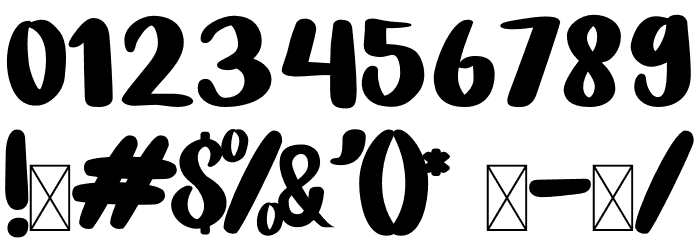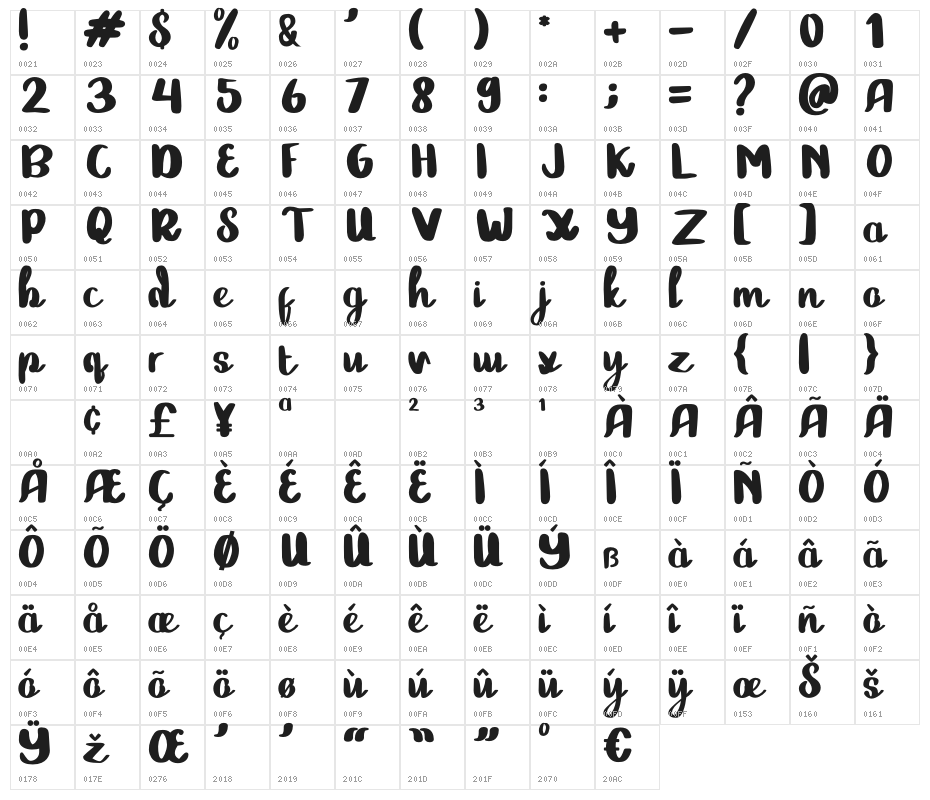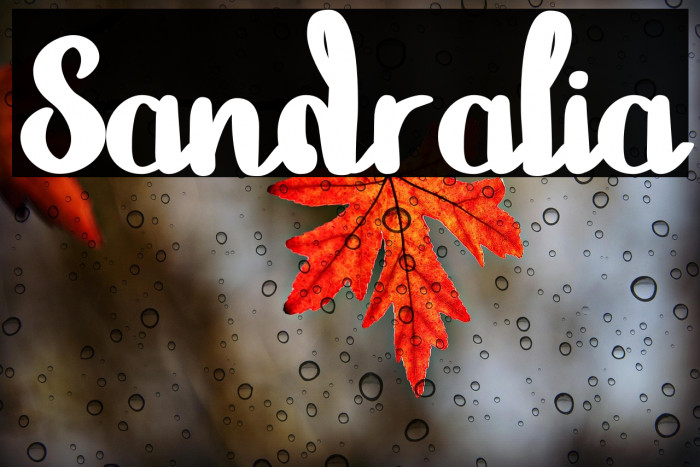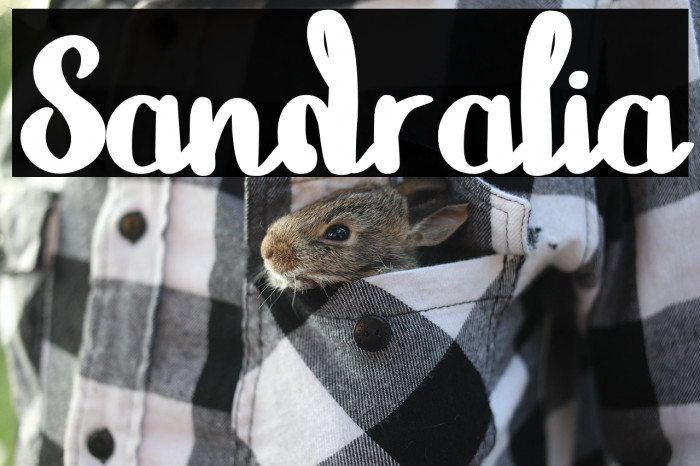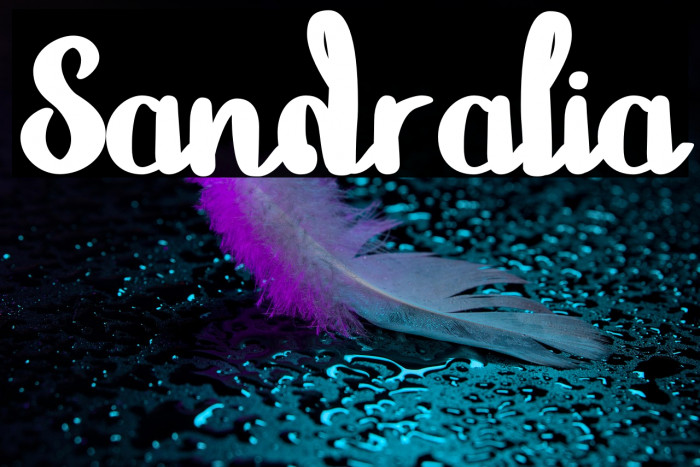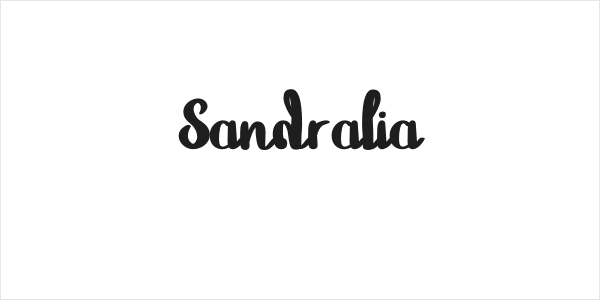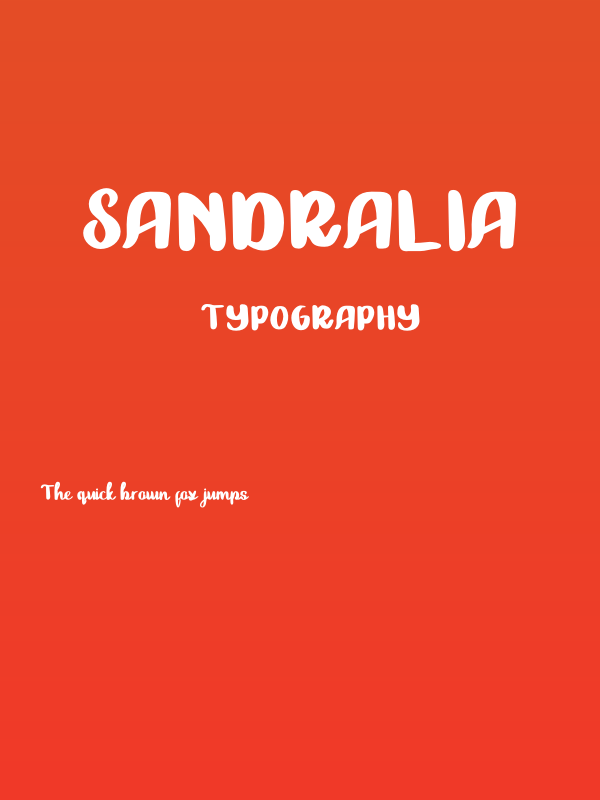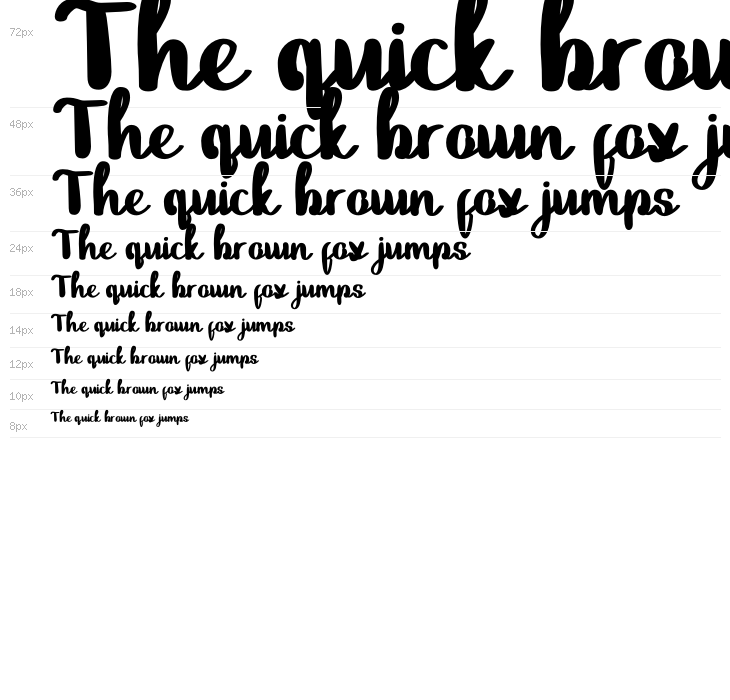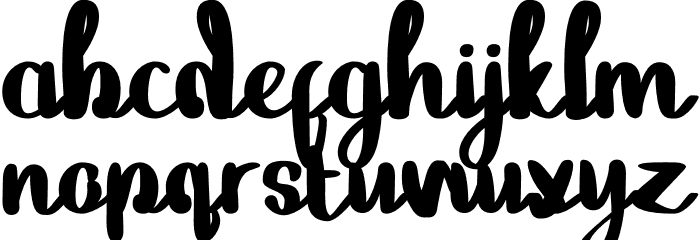
Sandralia Font
Sandralia Description
This font features a bold, playful script style with a handwritten feel. The characters are rounded and have a smooth flow, creating a sense of movement and energy. The uppercase letters are bold and slightly condensed, while the lowercase letters exhibit a more cursive, connected style. The numbers and special characters maintain the same boldness and playful aesthetic, making them stand out. The overall design is cohesive and visually appealing, suitable for projects that require a touch of creativity and informality.
| Overall Style | Playful, Creative |
| Proposed Projects | Ideal for greeting cards, playful branding, children's books, and creative posters. |